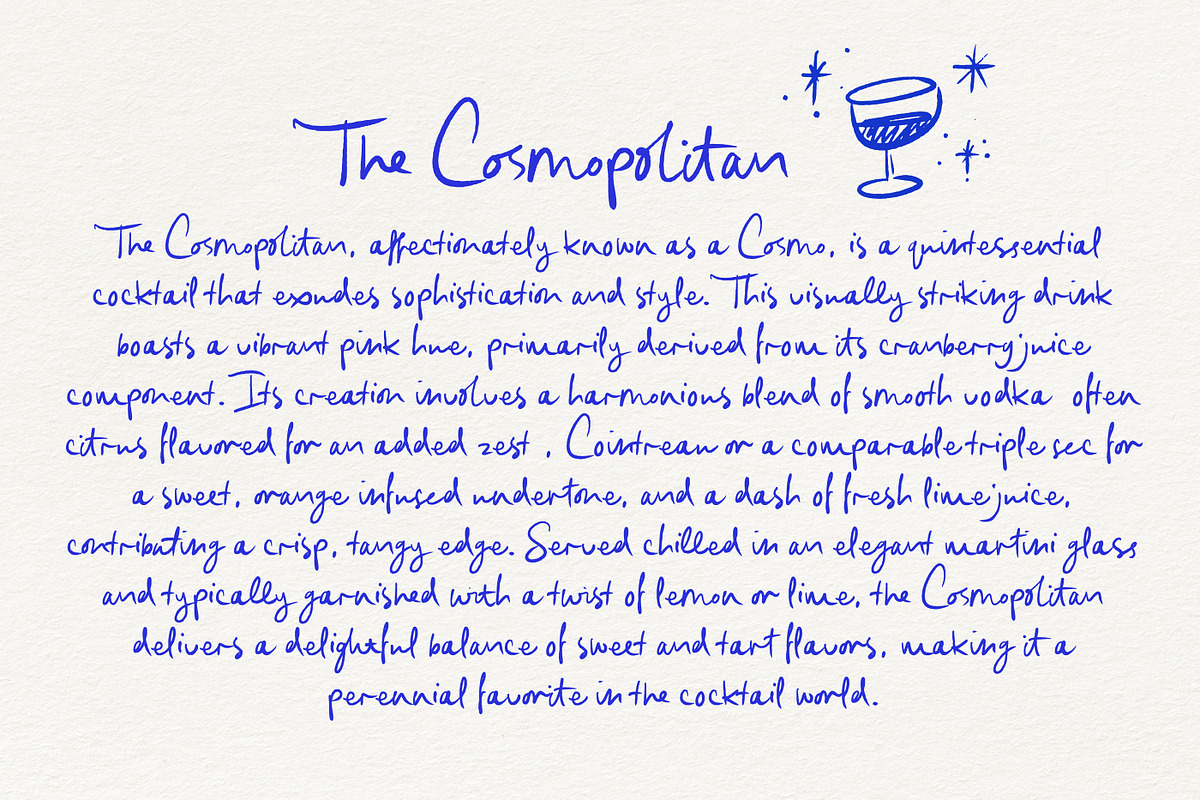
Honeymoon Hand Font
Honeymoon Hand is a lighthearted and quirky handwritten script full of playful romantic whimsy, with a boatload of Opentype ligatures, to make her look ultra-natural and less like a font. Perfect for Whimsical Wedding Stationery, Playful Greetings, and those moments when you just need a natural-looking, charming-but-fun script.